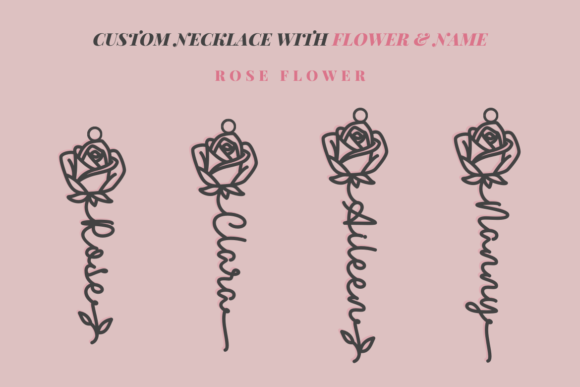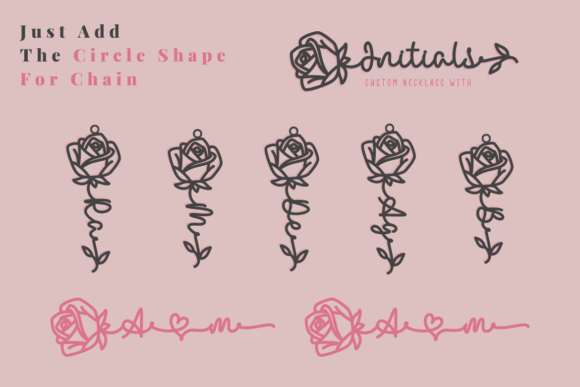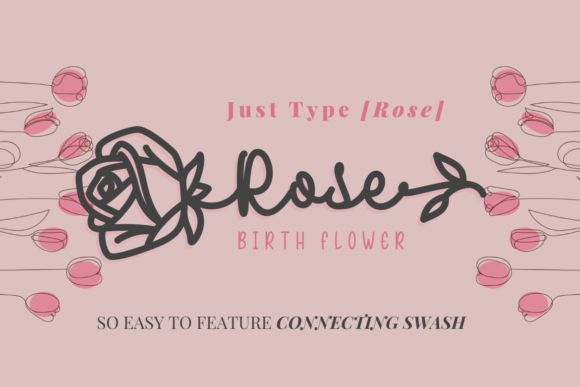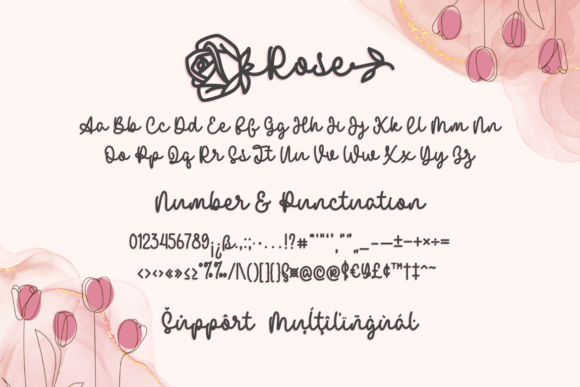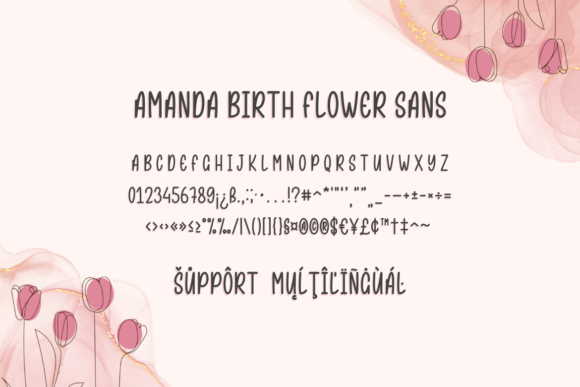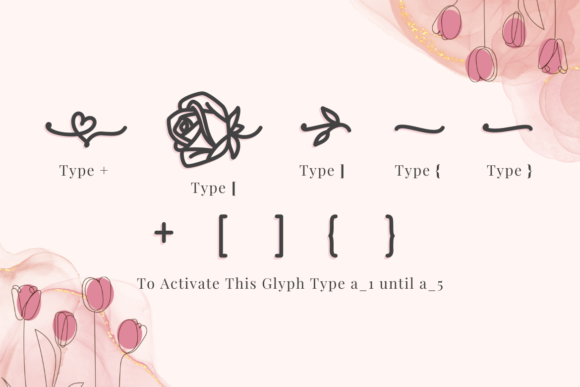
Introduction to Rose Birth Flower Duo Font
Rose Birth Flower Duo is a vintage styled script and sans serif font, carefully created with a touch of elegance.
Whether youโre looking for fonts for Instagram or calligraphy scripts for DIY projects, this font will turn any creative idea into a true piece of art June birth flower.
Key Features of Rose Birth Flower Duo Font